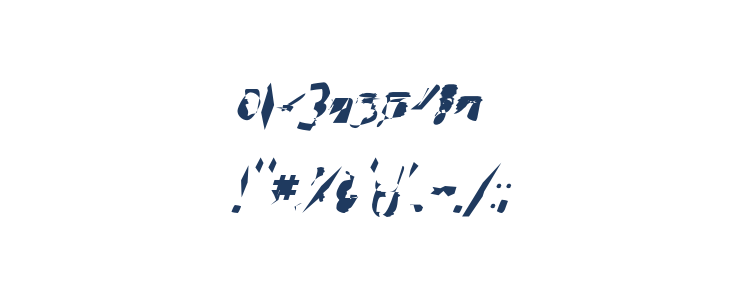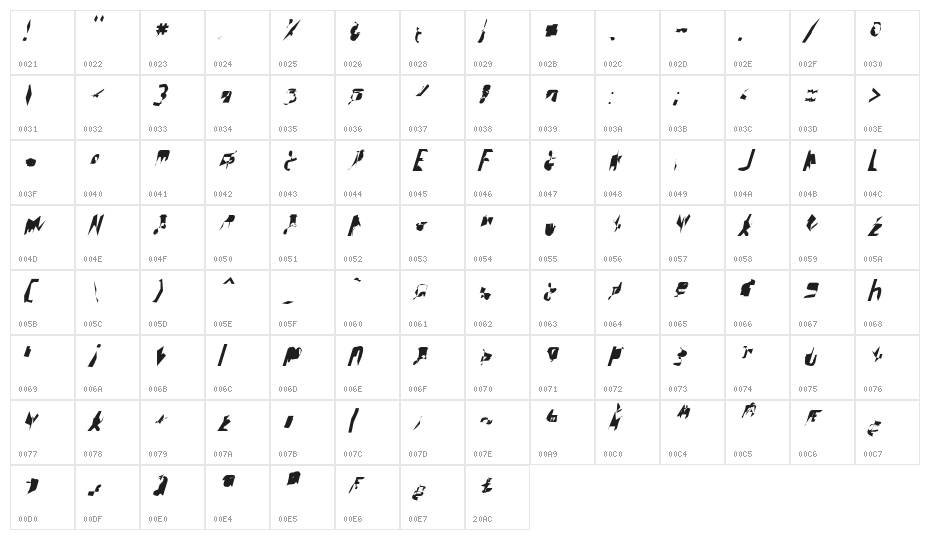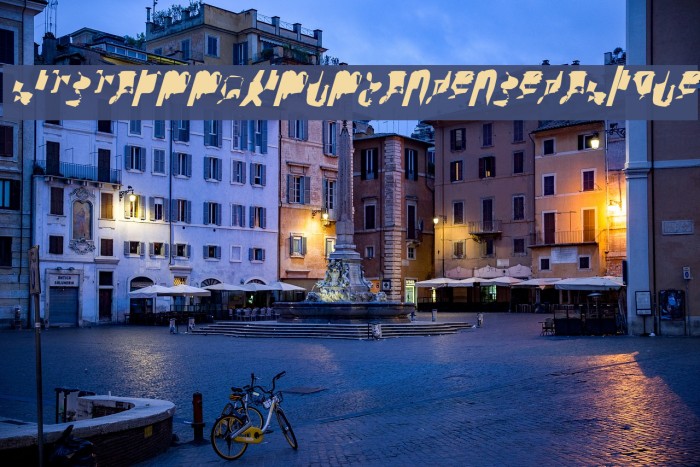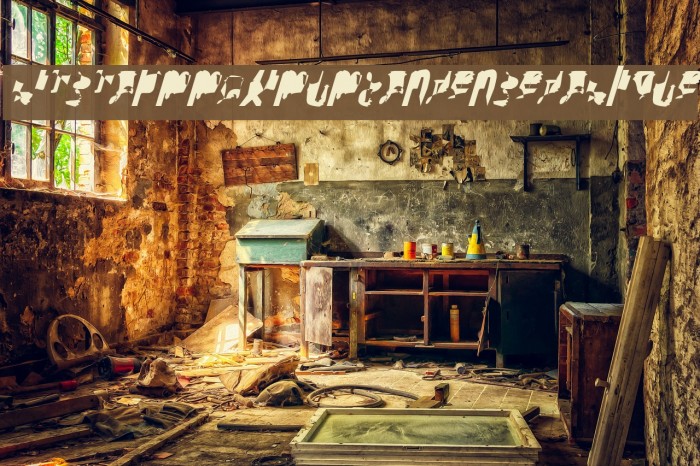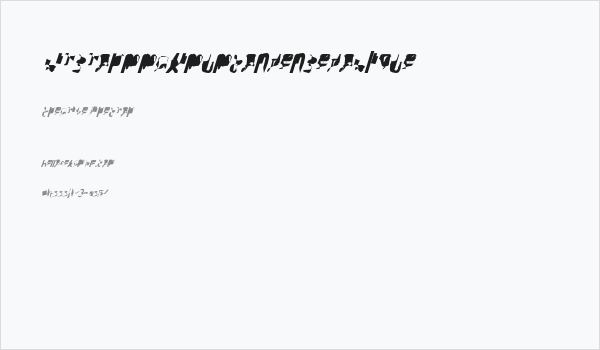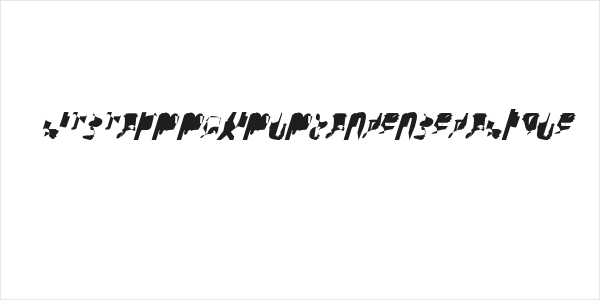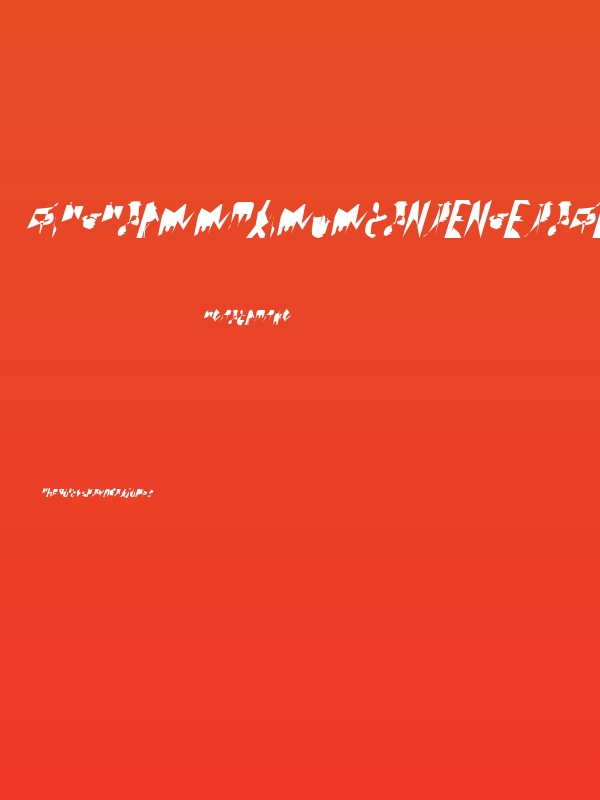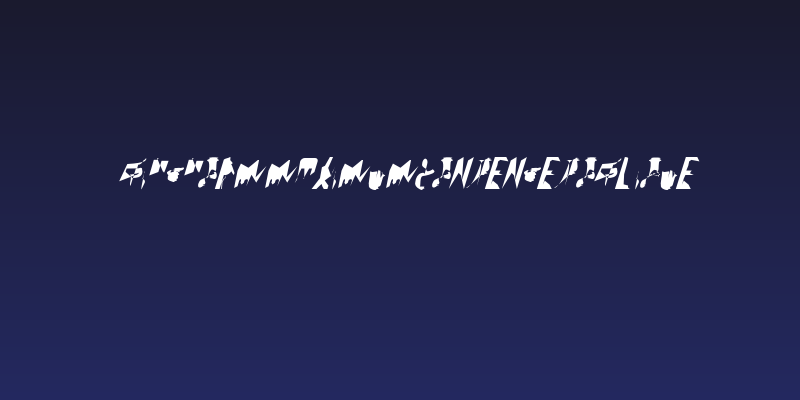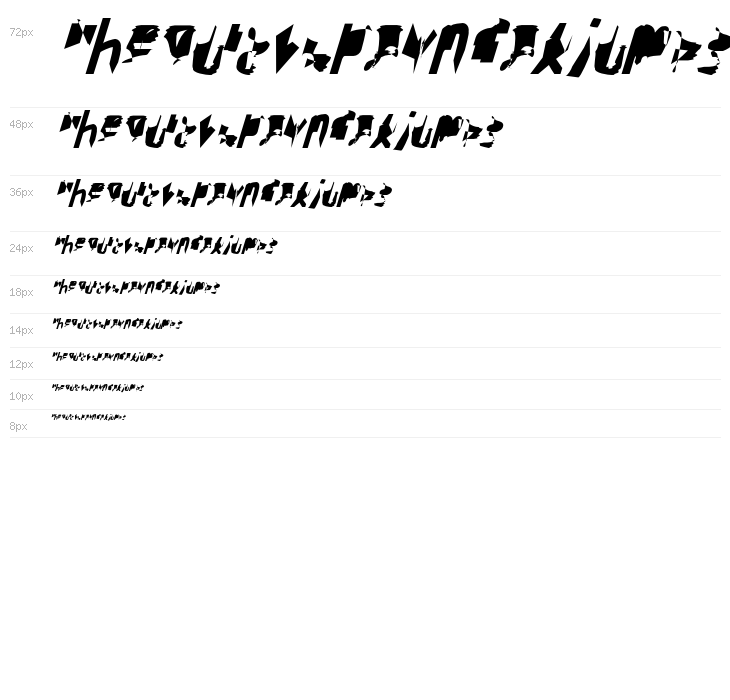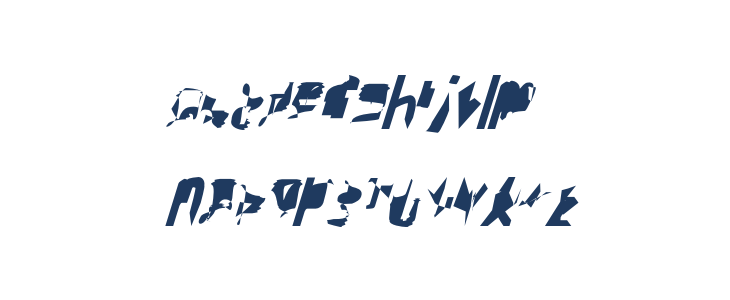
bitstorm maximumcondensed oblique Font
bitstorm maximumcondensed oblique Description
This font features a highly stylized and abstract design, characterized by sharp, angular forms and fragmented strokes that create a sense of movement and energy. The letters are condensed and oblique, giving them a dynamic and aggressive appearance. The irregular shapes and jagged edges contribute to a chaotic yet artistic aesthetic, making it stand out as a bold statement piece. The font's unique style may challenge readability at smaller sizes, but it excels in creating a striking visual impact.
| Overall Style | Modern, Abstract |
| Proposed Projects | Ideal for edgy branding, album covers, posters, and any project seeking a bold, artistic statement. |